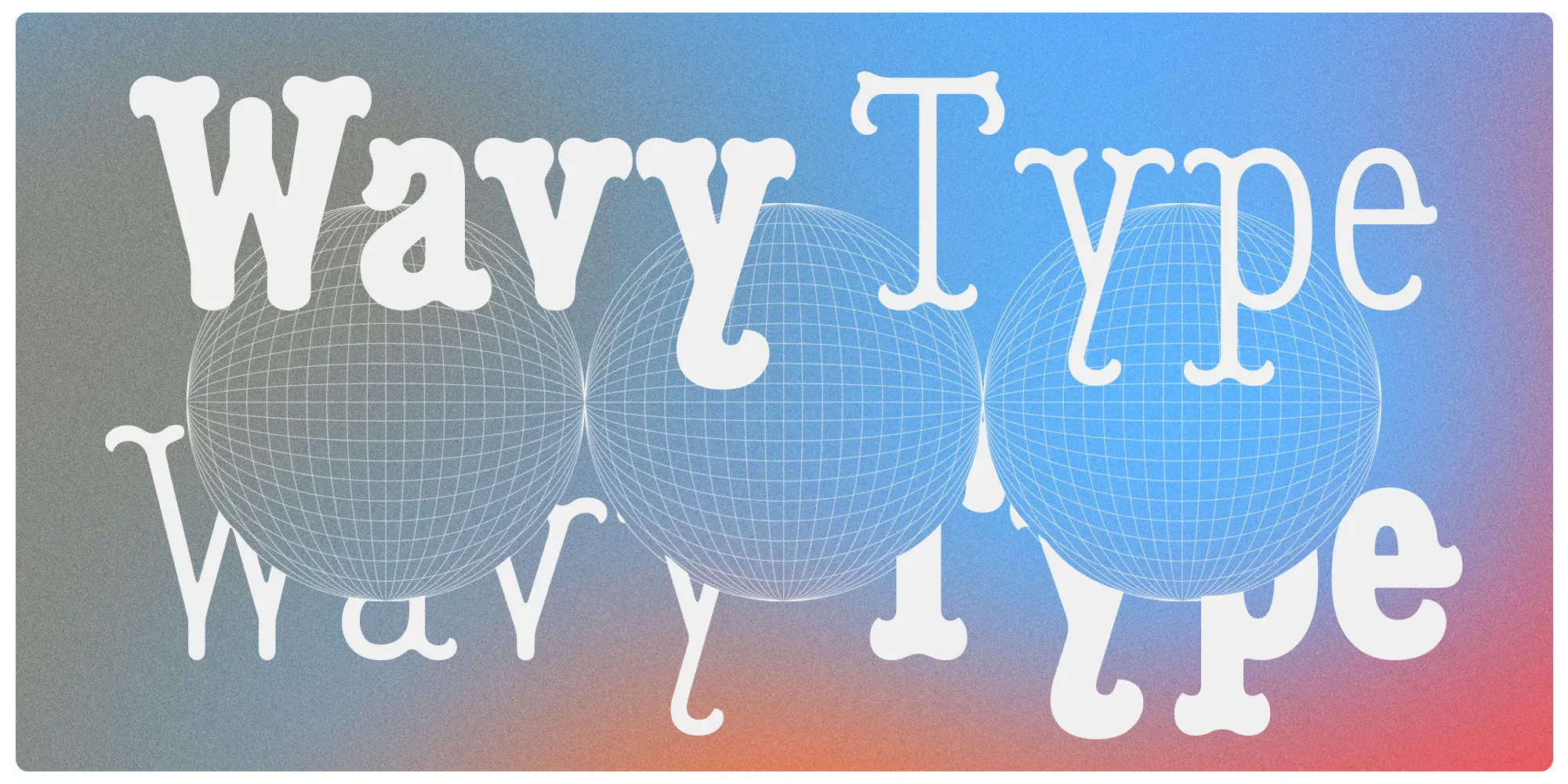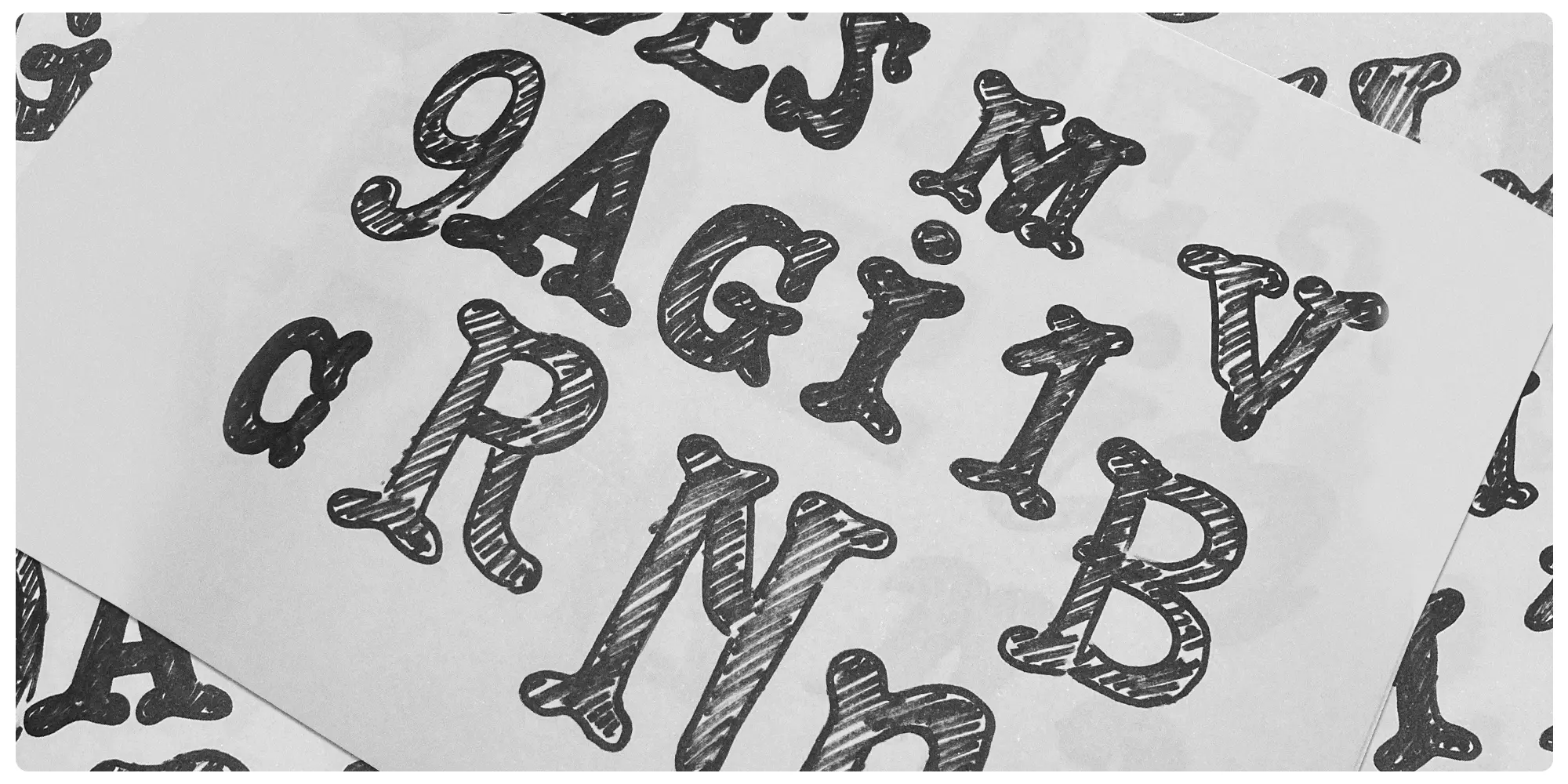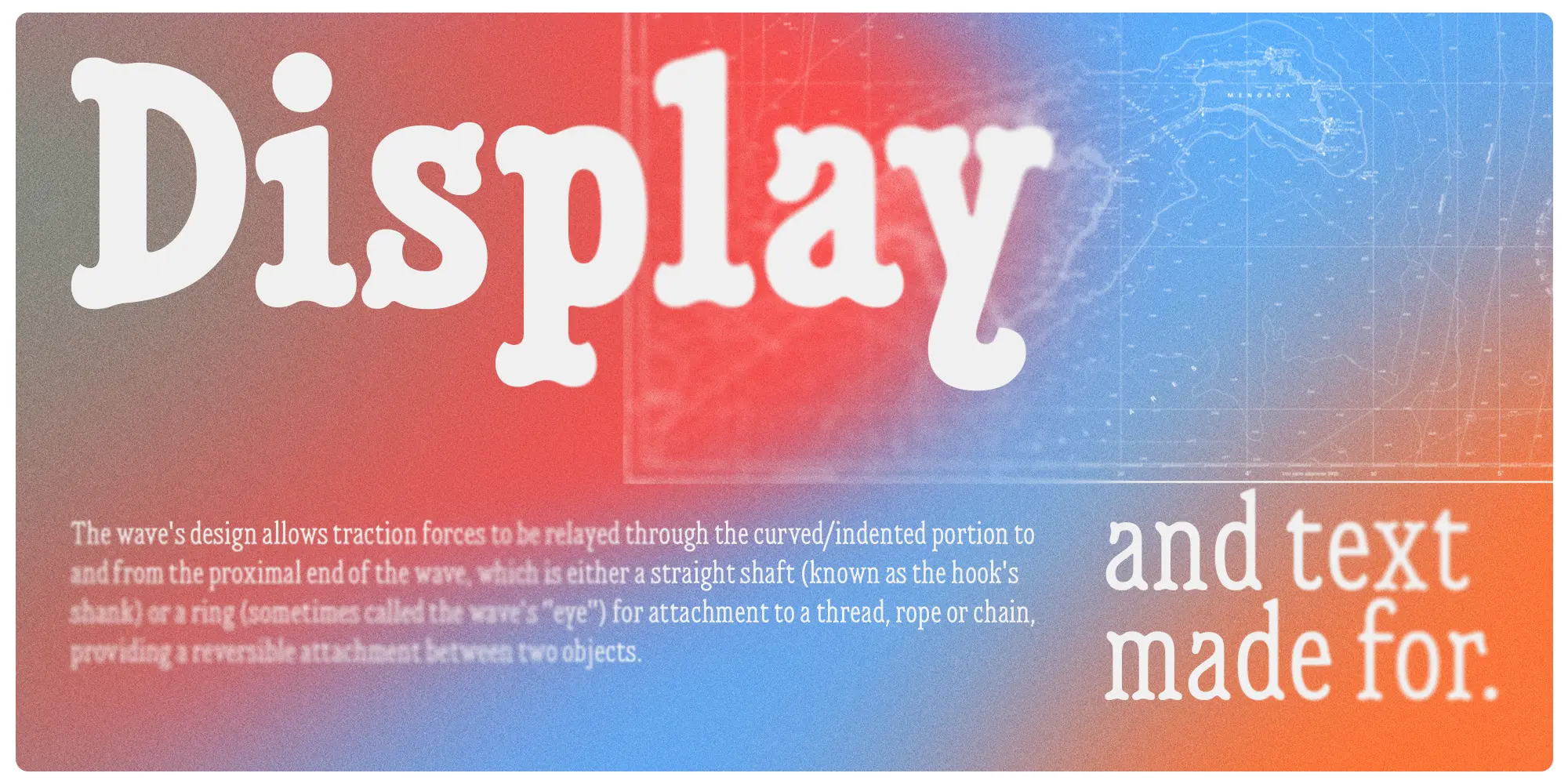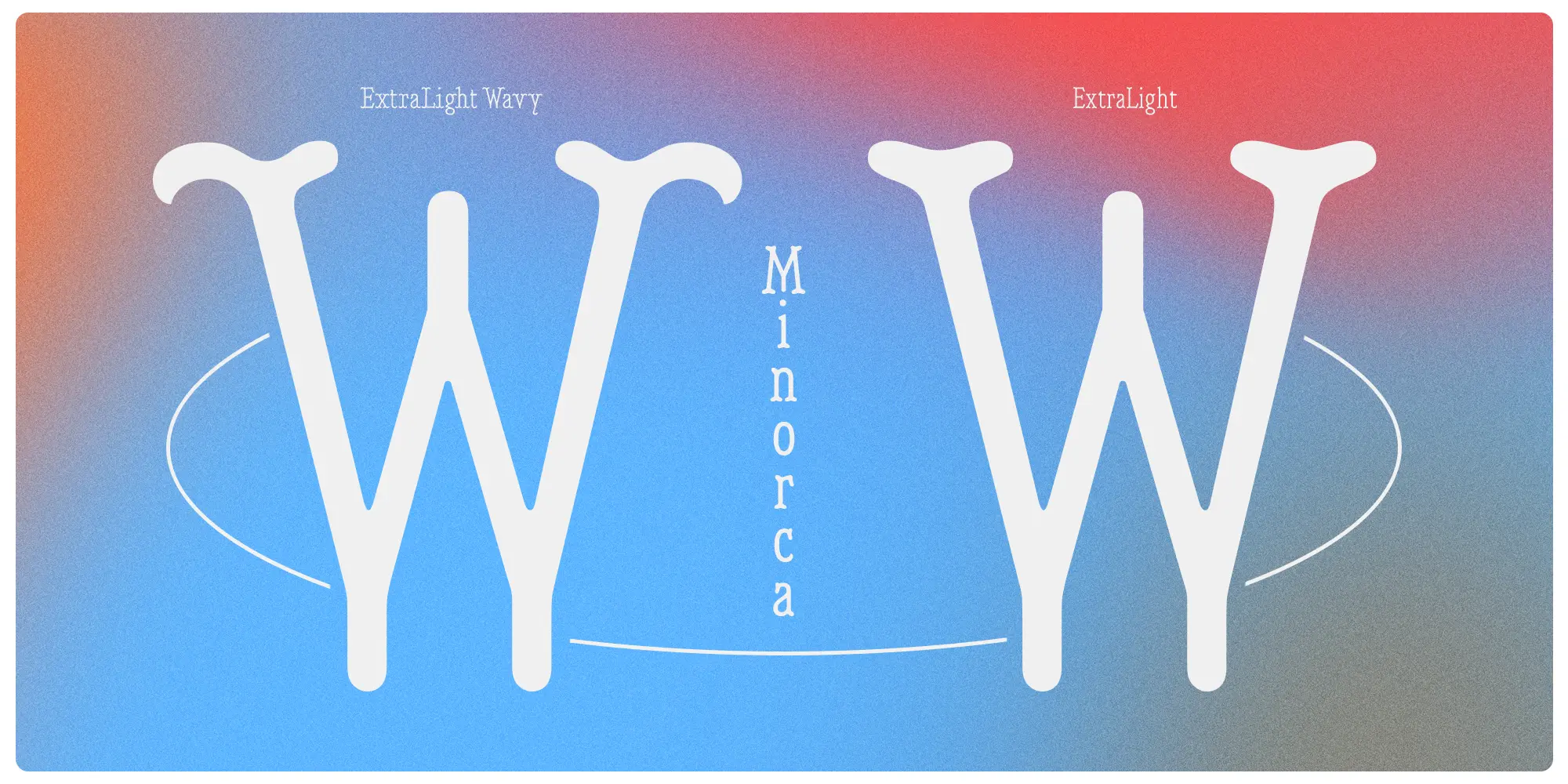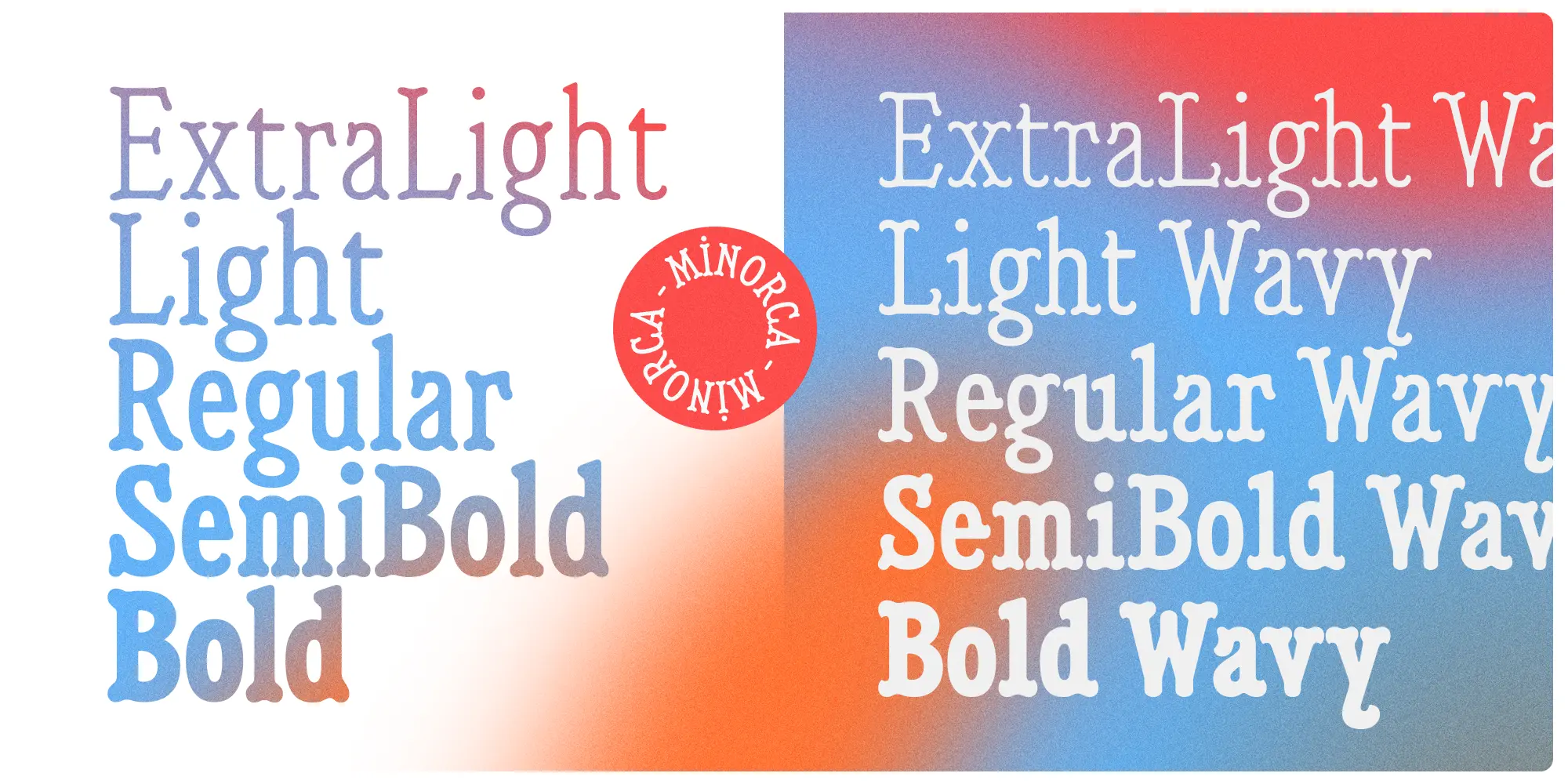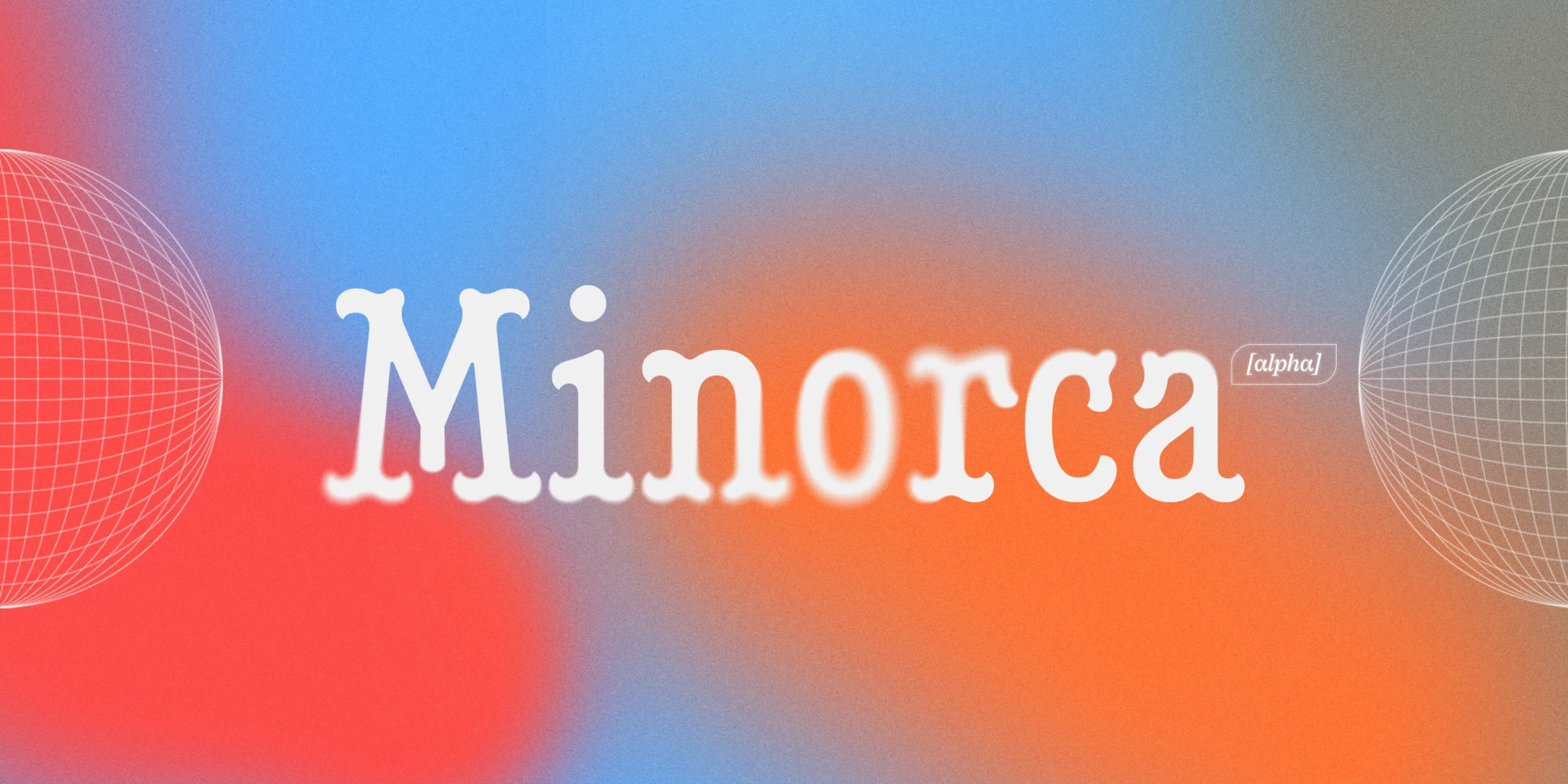
Minorca Fonts
Minorca is a non-traditional slab serif with narrow proportions. Inspired by the atypical capitals spotted along the Mahon port of Minorca, the letter shapes retain all of the engraved charm. The playful serifs are short and round or wavy, but since the font family is also available as a variable font, designers have options! With small capitals, arrows, and marine-like elements, it brings warmth to text and surprise to display, adding character to editorial, branding, film titles, and packaging.
OpenType Features
- Fractions
- Lining Numerals
- Old Style Numerals
- Ordinal Numerals
- Proportional Numerals
- Small Capitals
- Small Capitals for Capitals
- Stylistic Alternates
- Stylistic Sets
- Subscript
- Superscript
- Tabular Numerals